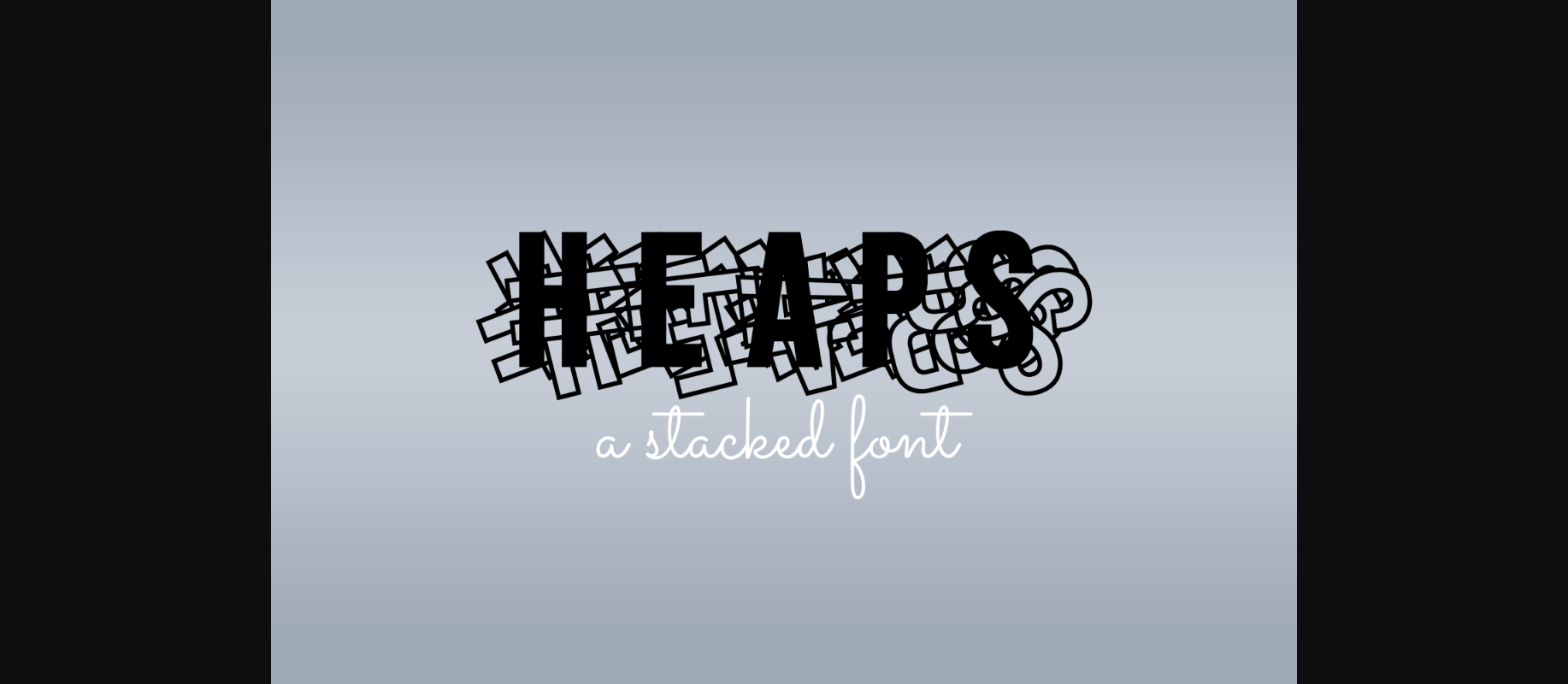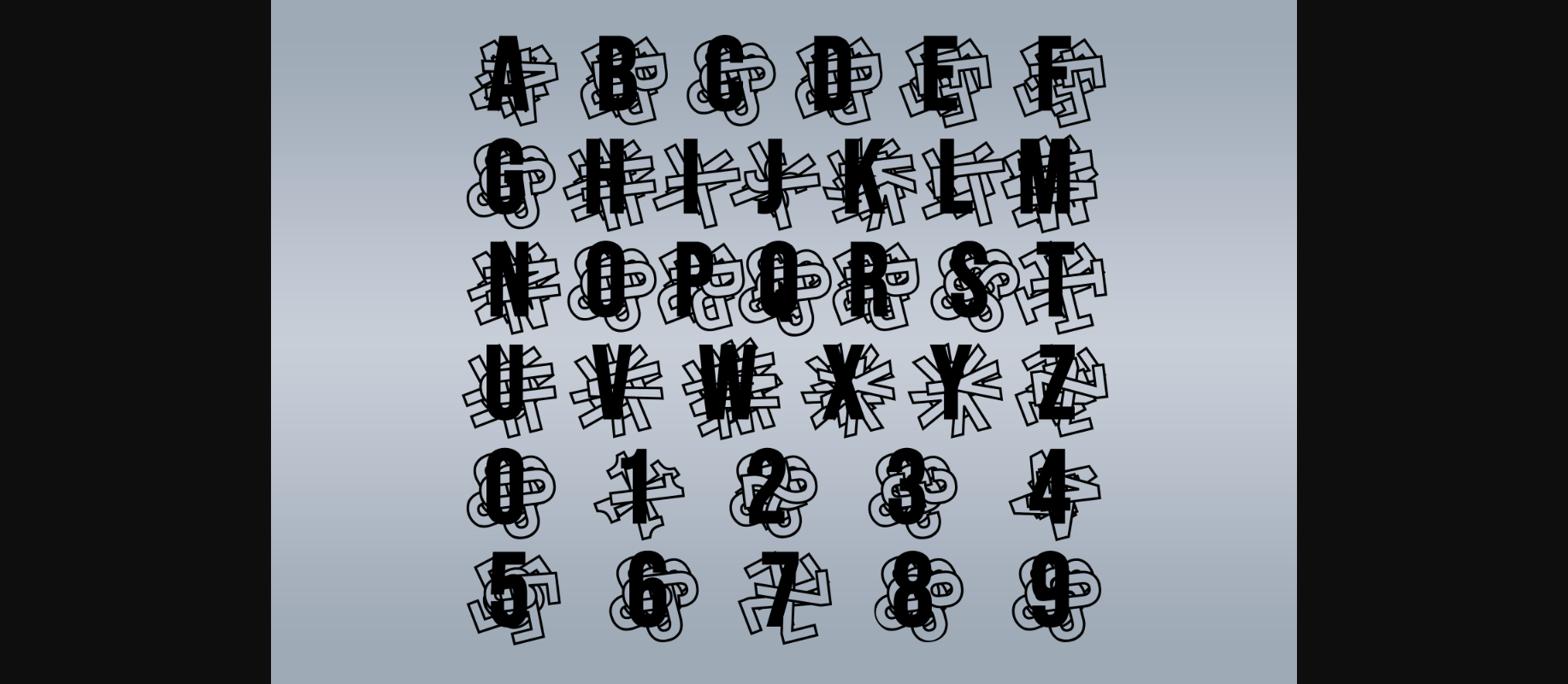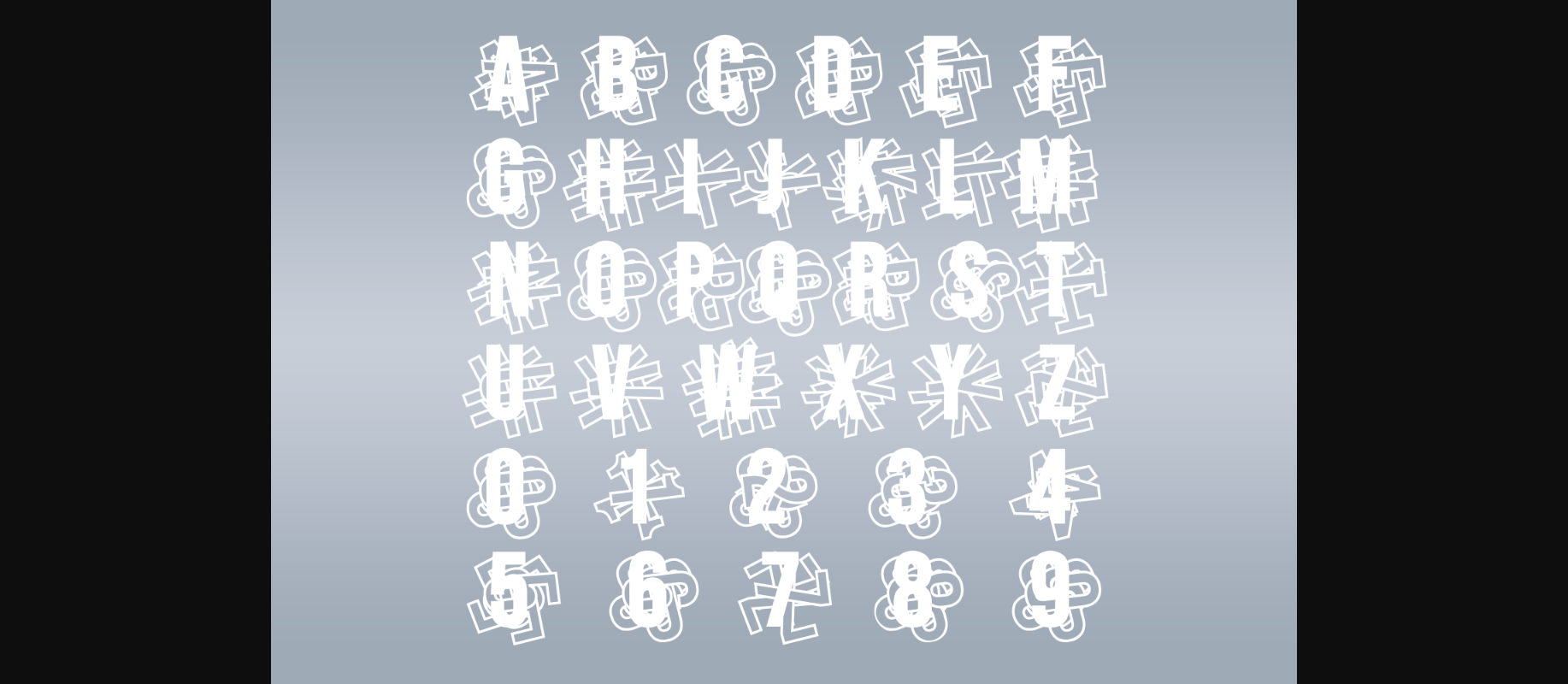
Heaps Font
About Heaps Font
Heaps is an incredibly cool decorative font. Whether you use it for custom designs, DIY crafts, or just any creation that requires a lovely touch, this font will be an amazing choice.